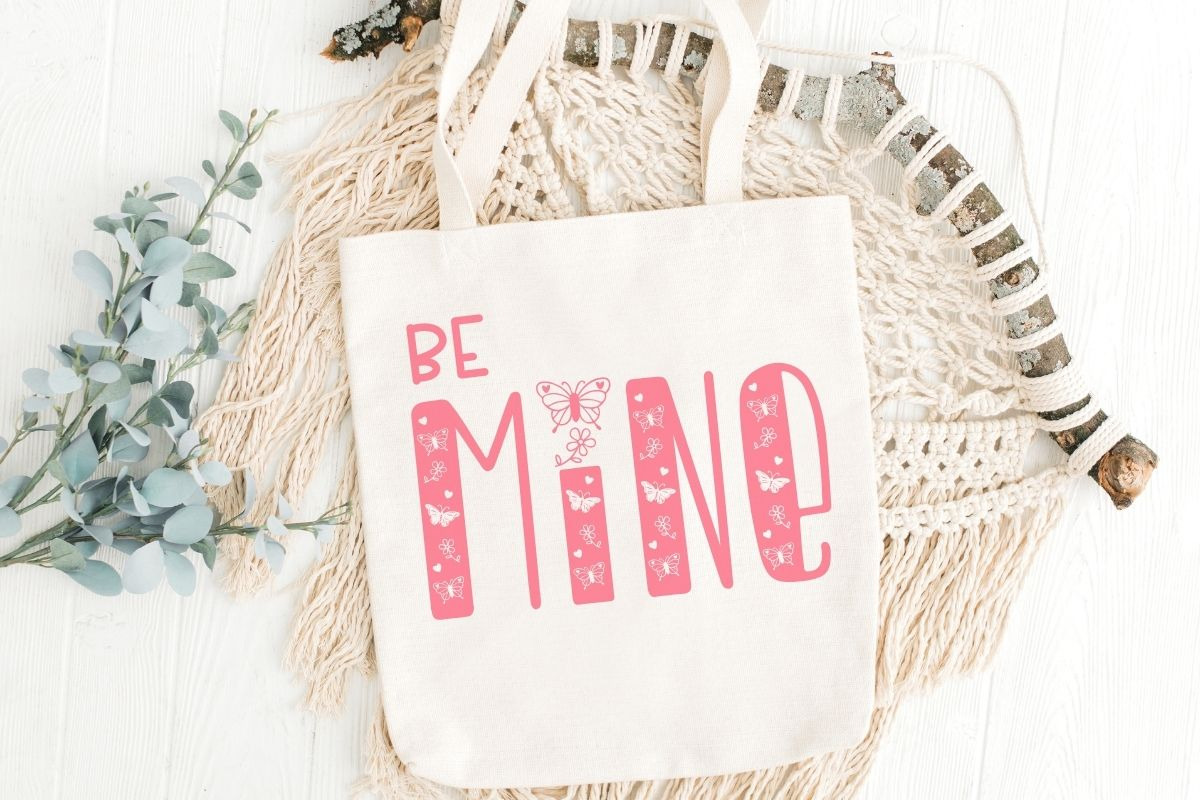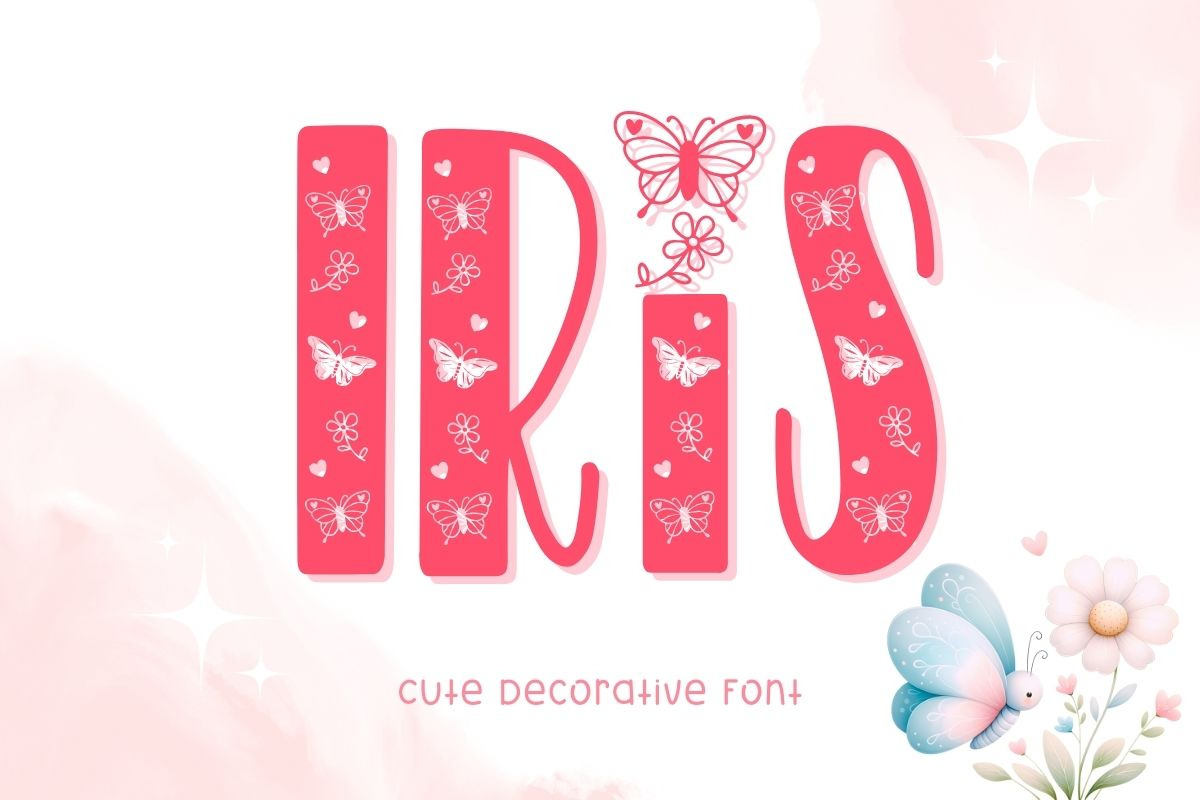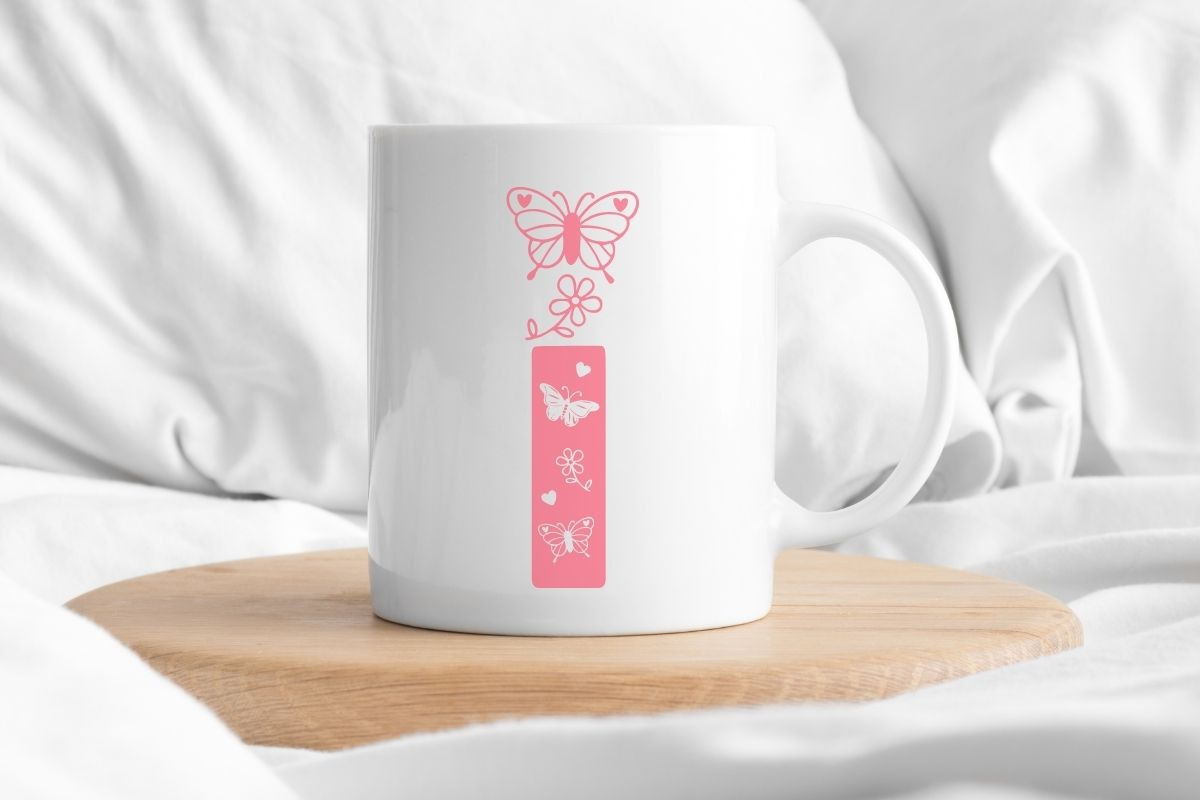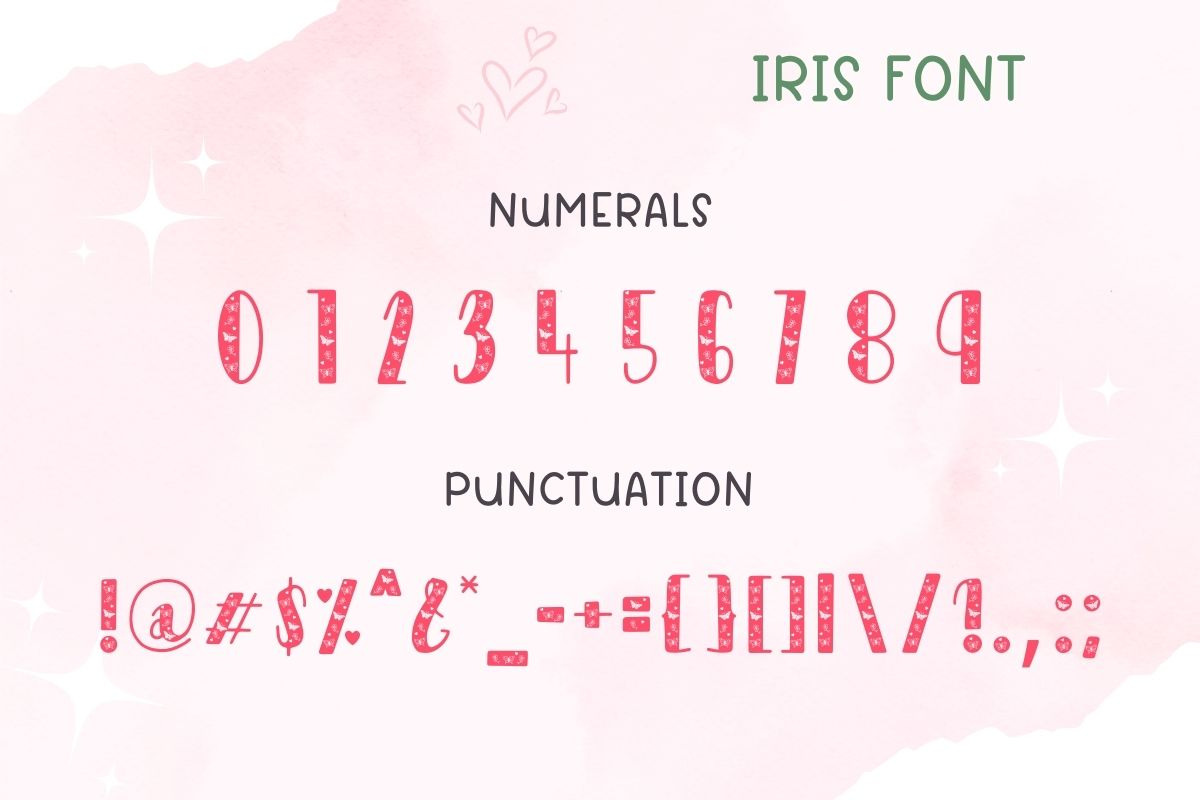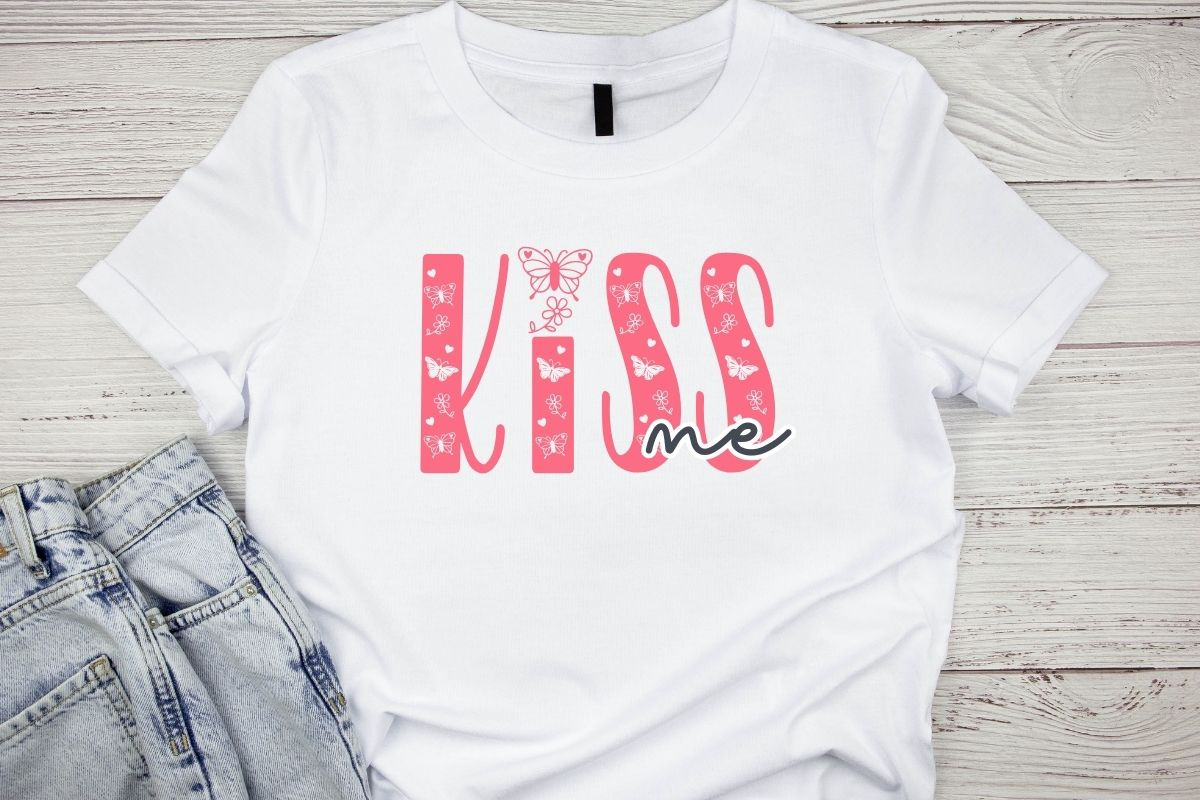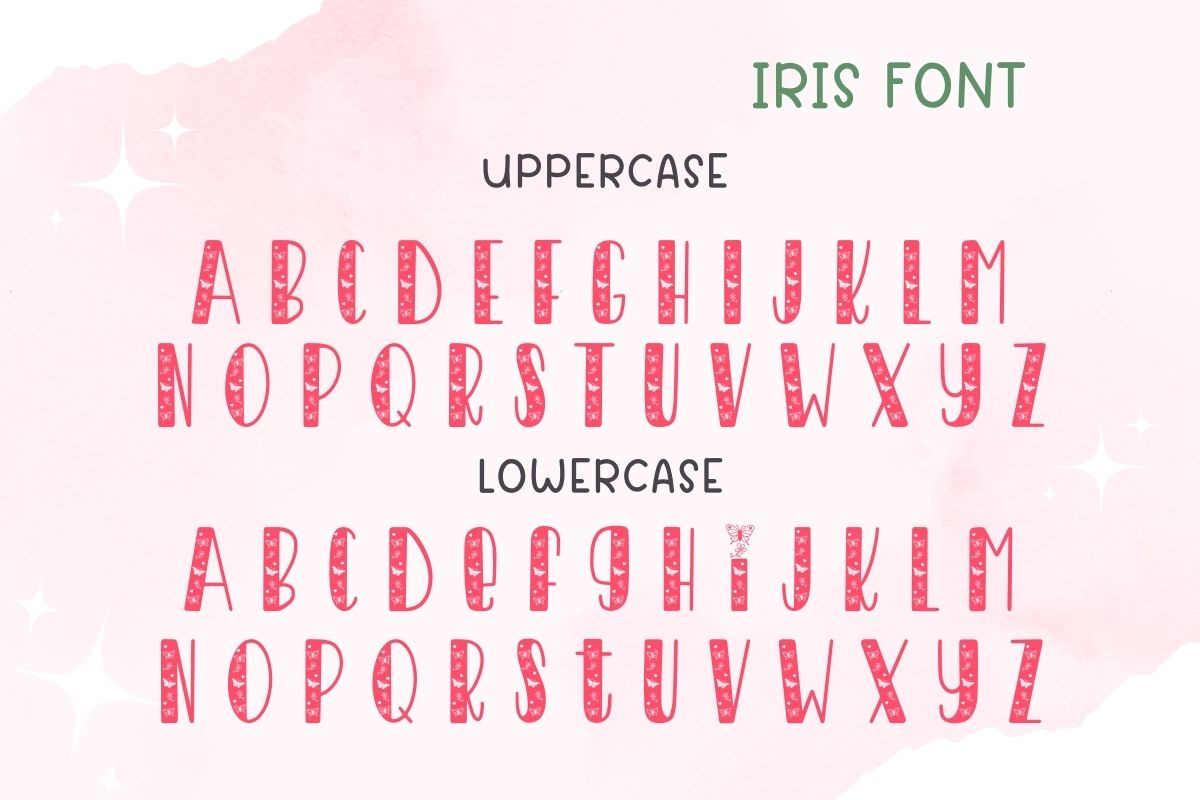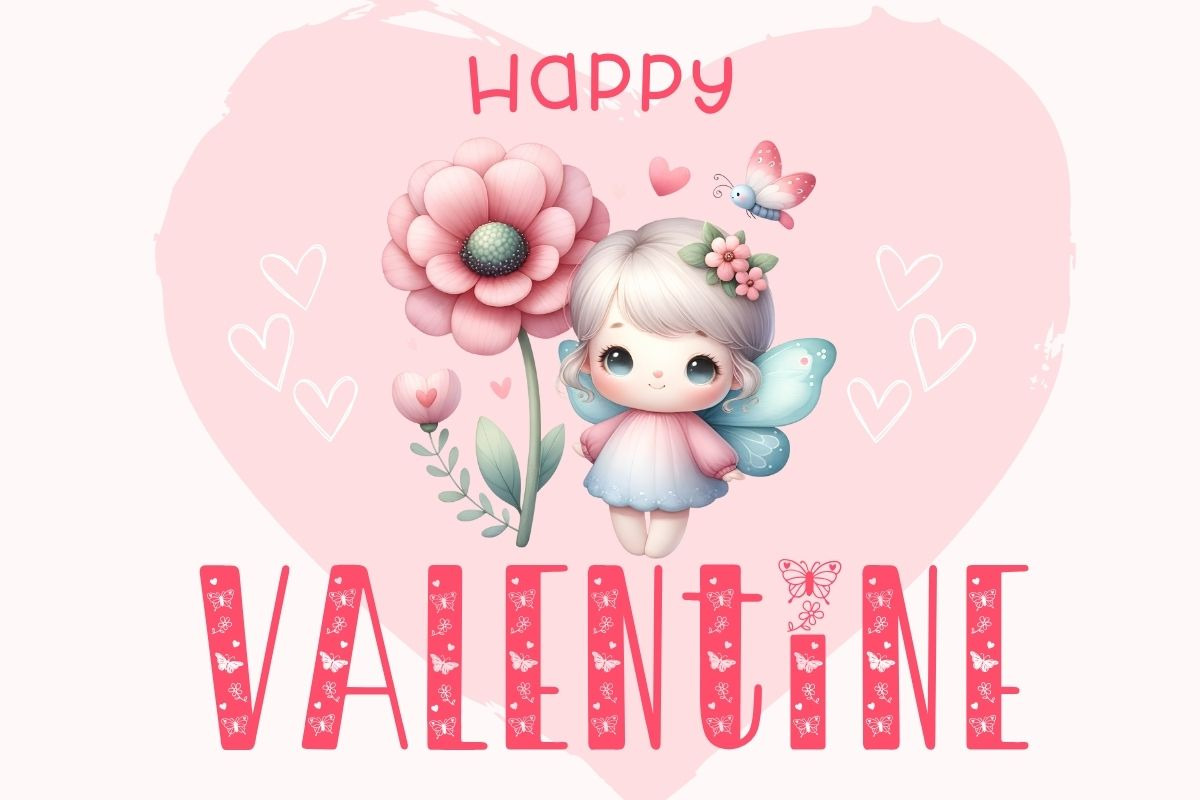
Iris - Cute Decorative Font
Iris is a cute decorative font filled with playful butterflies, flowers, and hearts inside each letterform. Perfect for creating Valentine’s Day cards, kids’ crafts, personalized gifts, tote bags, mugs, t-shirts, stickers, sublimation designs, and more. Iris comes in OTF and TTF formats and includes a bonus set of adorable clipart in PNG format, ready to brighten up your creative projects.